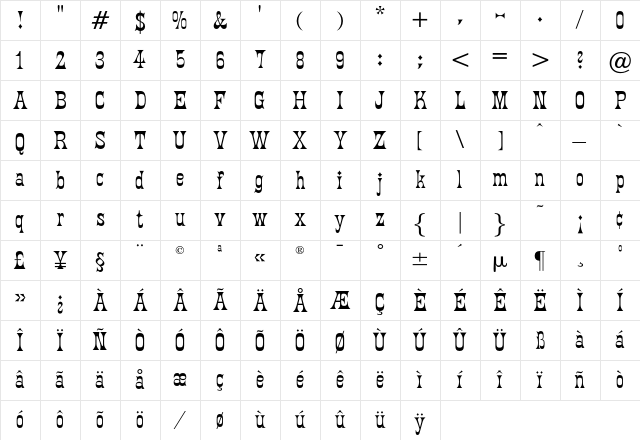
FantailOpti Regular Free Font
FantailOpti Regular
Foundry: Castcraft Software, Inc
Design Context for FantailOpti
FantailOpti is a composed and adaptable typeface that performs quietly and consistently across a wide range of design contexts.
Who designed the FantailOpti Regular font?
This font was published by Castcraft Software, Inc. Check the technical specs section for copyright and designer details.